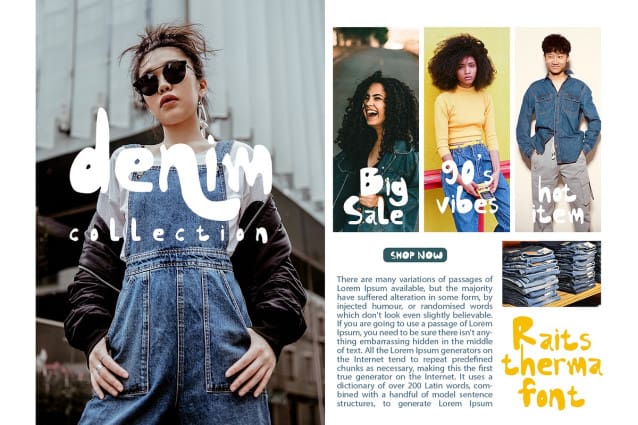
Raits Therma Font
Raits Therma Font is a playful handwritten font. Super easy to use, you can access these via using OpenType capable software ( like Photoshop, Illustrator, Indesign). You can also access them if you use a Mac and use Fontbook and Textedit. And will be perfect for book, title branding, product packaging, invitation, quotes, label, poster, logo etc.